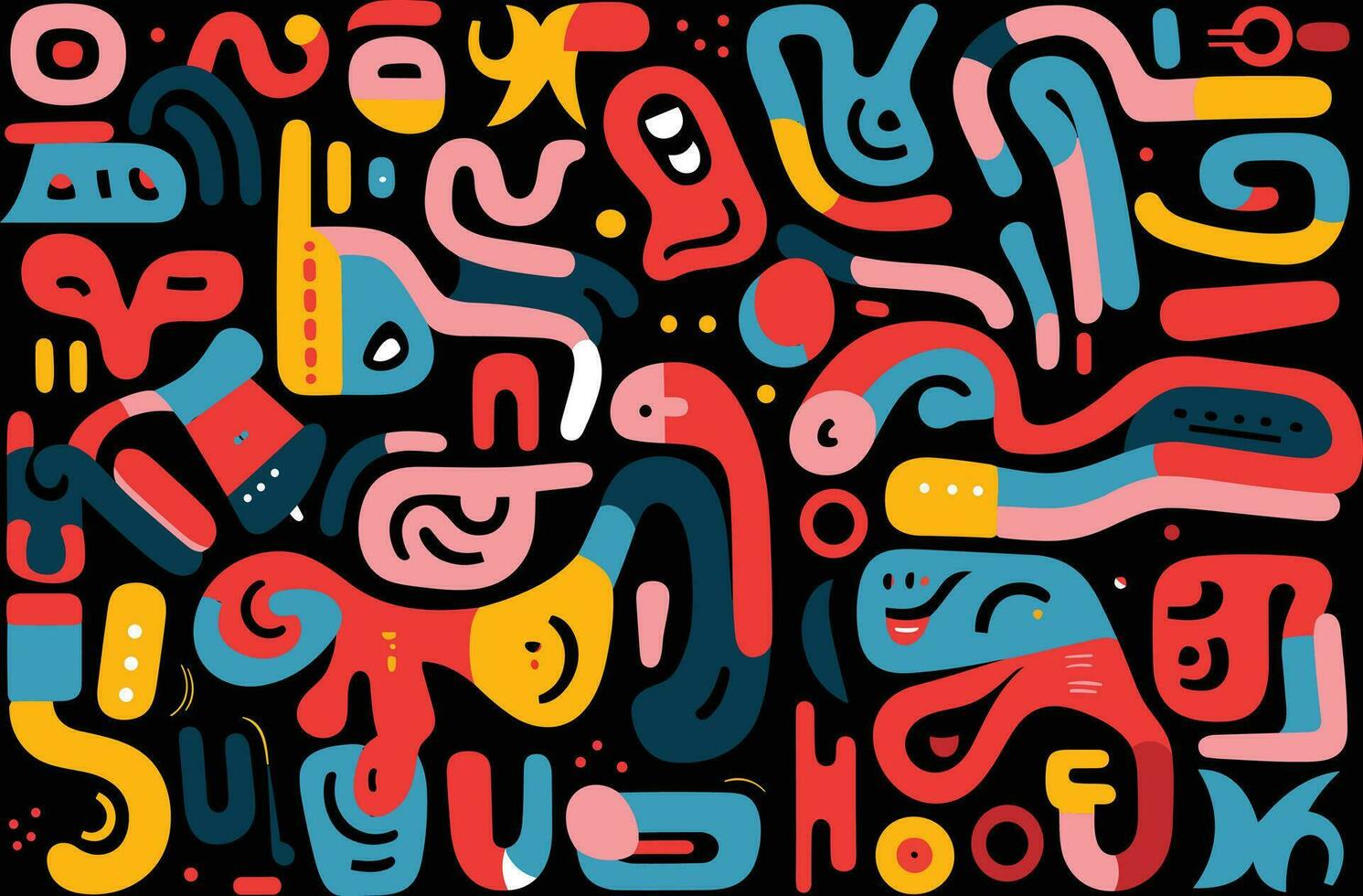
modern style pattern of colored fonts on a black background, in the style of organic shapes and curved lines, happy expressionism, pop-inspired lines, geometric shape Pro Vector